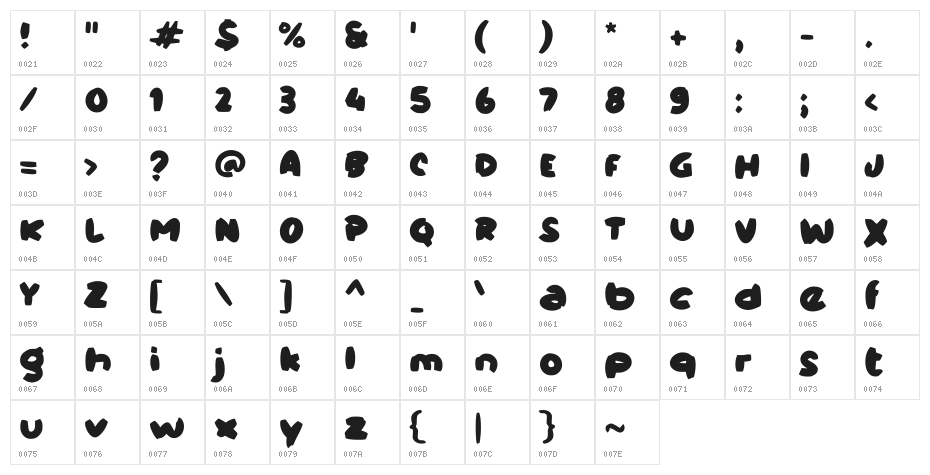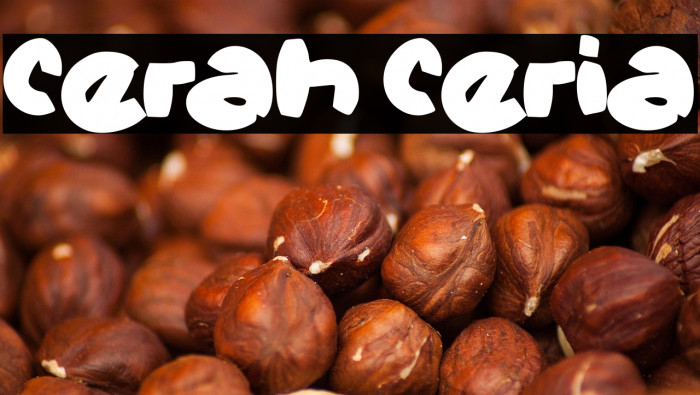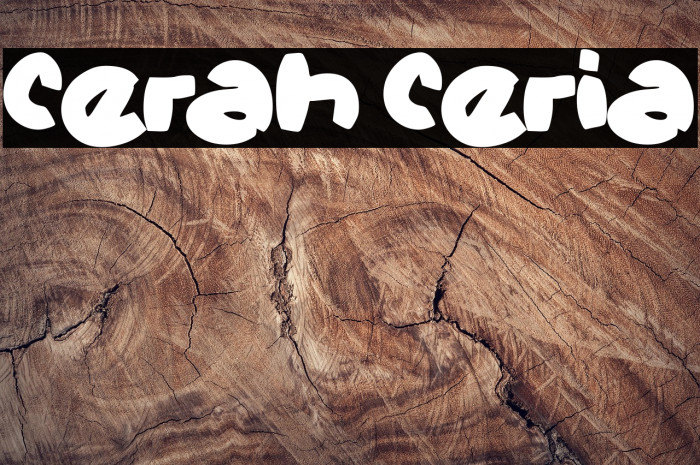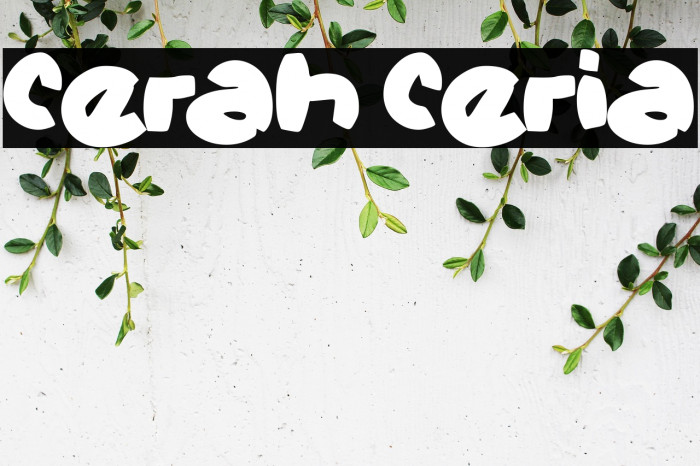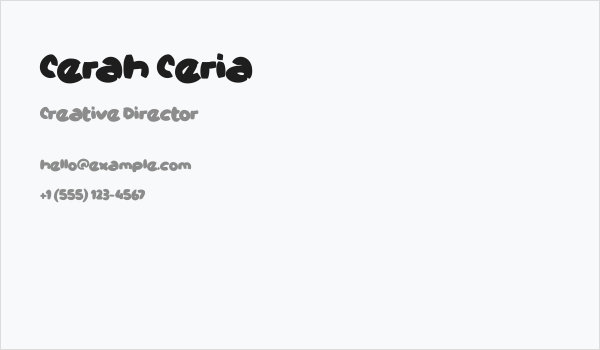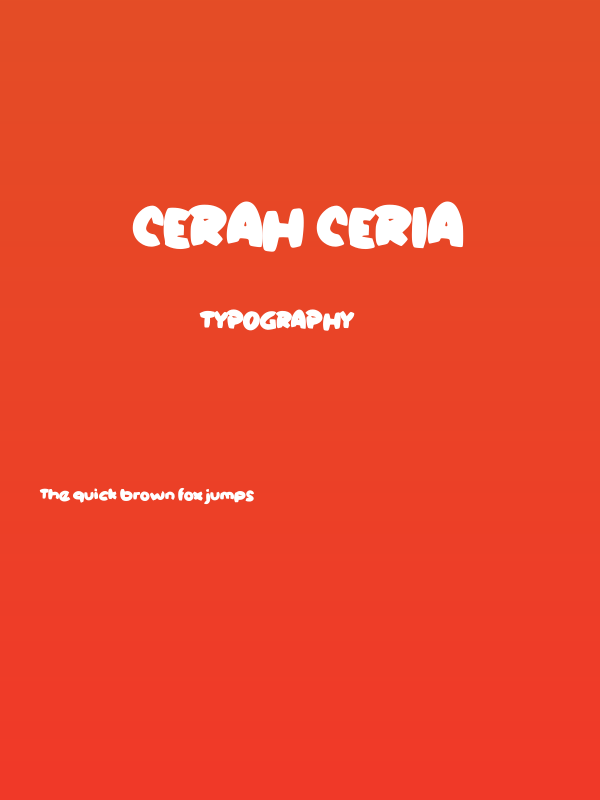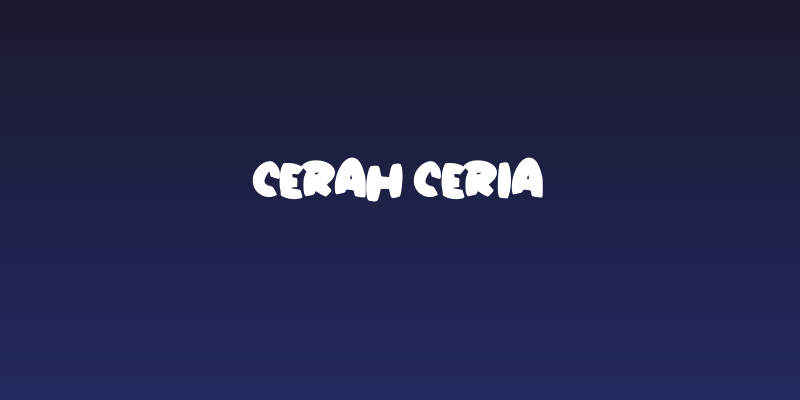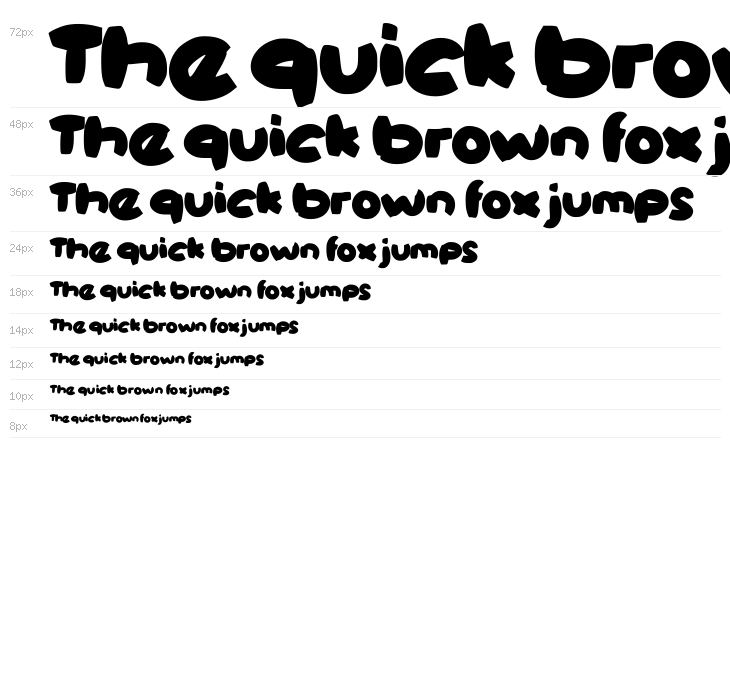
Cerah Ceria Font
Cerah Ceria Description
This playful and bold font features thick, rounded characters that convey a sense of fun and creativity. The letters are designed with a hand-drawn aesthetic, giving them a unique and informal appearance. The uppercase and lowercase letters maintain a consistent style, with exaggerated curves and a slightly irregular baseline that adds to the whimsical feel. The numerals and special characters are equally bold and expressive, making them stand out in any design. This font is perfect for projects that require a lively and energetic vibe, such as children's books, posters, or playful branding materials.
Overall StylePlayful, Creative, Whimsical
Proposed ProjectsIdeal for children's books, playful branding, posters, and creative projects.